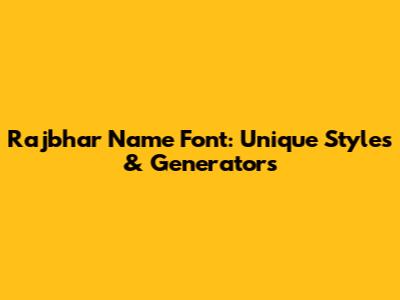
- Consider the context: Where will you be using the font? A formal setting calls for a more traditional font, while a casual setting allows for more creativity.
- Think about your personality: What kind of image do you want to project? Choose a font that aligns with your personal brand.
- Ensure legibility: Make sure the font is easy to read, especially at smaller sizes.
- Don't be afraid to experiment: Try out different fonts until you find one that you love.
- Pair fonts carefully: If you're using multiple fonts, make sure they complement each other.
- Browse a variety of generators: Each generator offers a different selection of fonts and features.
- Experiment with different styles: Don't be afraid to try out fonts you wouldn't normally consider.
- Download high-quality fonts: Choose fonts that are well-designed and easy to read.
- Use fonts that complement your overall design: Your font should work well with the other elements of your design.
Hey guys! Ever wanted to make your name, especially if you're rocking the Rajbhar surname, look super cool and stylish? Well, you're in the right place! This article dives deep into the world of Rajbhar name fonts, exploring various styles, generators, and how you can use them to create stunning visuals. Whether it's for social media, personalized gifts, or just expressing your identity, let's explore how to make your Rajbhar name stand out with the perfect font!
Why a Unique Font Matters for Your Rajbhar Name
In today's digital age, standing out is more important than ever. A unique font can be a game-changer when representing your name. Think about it: your name is your brand, your identity. Using a generic, default font just doesn't cut it. A carefully chosen font, especially when paired with a distinctive surname like Rajbhar, can add personality, flair, and memorability.
Fonts evoke emotions: Different fonts carry different vibes. A bold, strong font can convey confidence and authority, while a cursive, elegant font can express sophistication and grace. For your Rajbhar name, selecting a font that resonates with your personal style and the message you want to send is crucial. Consider the context too – a playful font might be perfect for a social media profile, but a more professional font would be better suited for a resume or business card.
Visual appeal: Let's face it, we're all drawn to things that look good. A well-designed font is visually appealing and can instantly grab attention. In a sea of text, a unique font can make your Rajbhar name pop. This is especially important online where you have mere seconds to make an impression. Think about how logos use specific fonts to create a brand identity – you can do the same with your name!
Cultural significance: Names often carry cultural and historical significance. Choosing a font that complements this heritage can add depth and meaning. For those with the Rajbhar surname, exploring fonts that have traditional or regional influences can be a way to honor their roots. This could involve researching fonts inspired by Indian calligraphy or typography.
Personal expression: Ultimately, your font choice is a reflection of your personality. It's a chance to showcase your individuality and creativity. Don't be afraid to experiment with different styles until you find one that truly feels like you. After all, your name is yours, and your font should be too! Using a custom Rajbhar name font shows you've put thought and effort into your presentation, making you more memorable and engaging.
Exploring Different Font Styles for Rajbhar Names
Alright, let's dive into the fun part – exploring the amazing world of fonts! There are tons of different styles out there, and finding the perfect one for your Rajbhar name can be an exciting journey. Here are a few popular categories to get you started:
Serif Fonts: These fonts have small decorative strokes (called serifs) at the end of each letter. They often convey a sense of tradition, authority, and elegance. Think Times New Roman or Garamond. A serif font can be a great choice for a Rajbhar name if you're aiming for a classic and sophisticated look.
Sans-Serif Fonts: As the name suggests, these fonts don't have serifs. They're typically clean, modern, and easy to read. Arial, Helvetica, and Open Sans are popular examples. Sans-serif fonts are a versatile option for Rajbhar names, suitable for both digital and print applications. They can convey a sense of simplicity, efficiency, and approachability.
Script Fonts: These fonts mimic handwriting and can range from elegant calligraphy to casual brushstrokes. Script fonts add a touch of personality and flair to your Rajbhar name. However, it's important to choose a script font that's legible, especially for smaller sizes. Some popular script fonts include Brush Script, Pacifico, and Lobster.